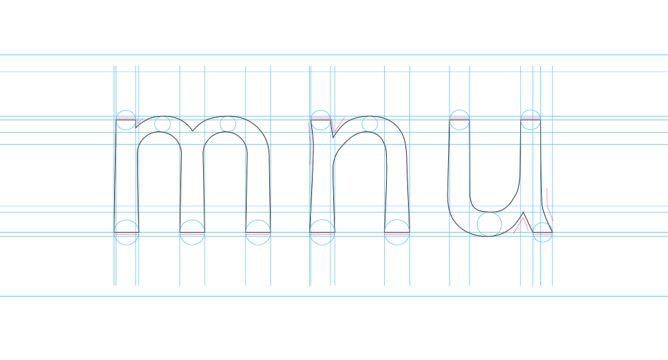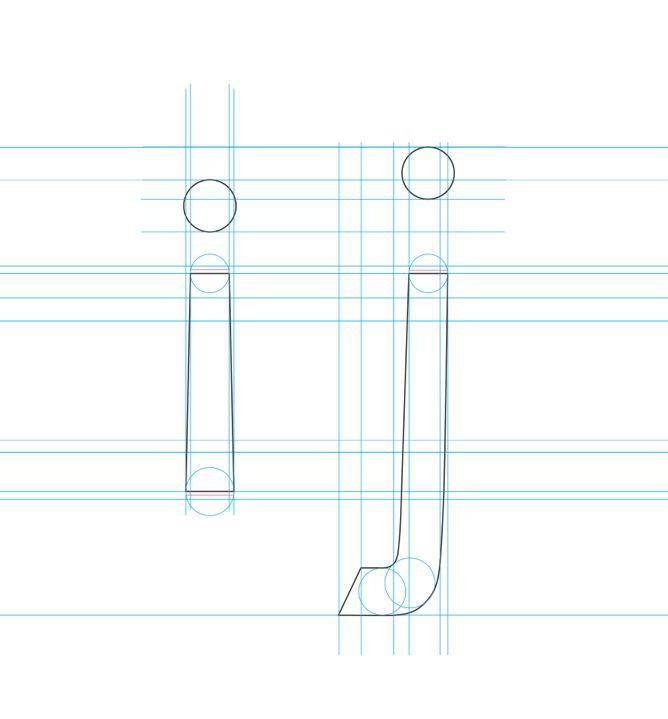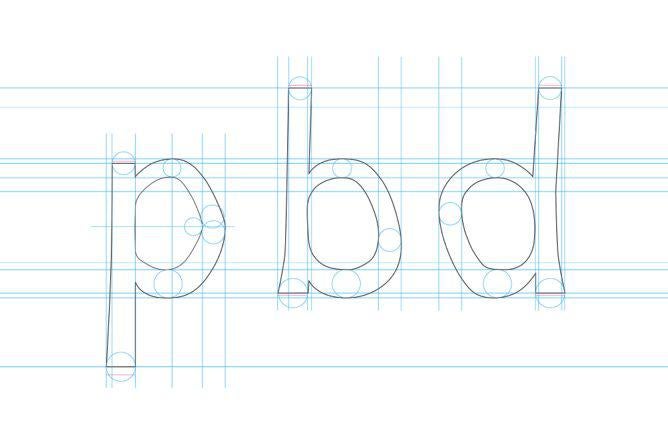
A Typeface Designed to Help Dyslexics Read
Dutch designer Christian Boer created the Dyslexie font to help people with dyslexia like himself.
Dutch designer Christian Boer created a dyslexic-friendly font to make reading easier for people with dyslexia, like himself.
“Traditional fonts are designed solely from an aesthetic point of view,” Boer writes on his website, “which means they often have characteristics that make characters difficult to recognize for people with dyslexia. Oftentimes, the letters of a word are confused, turned around or jumbled up because they look too similar.”
Designed to make reading clearer and more enjoyable for people with dyslexia, Dyslexie uses heavy base lines, alternating stick and tail lengths, larger openings, and semicursive slants to ensure that each character has a unique and more easily recognizable form.
Currently featured as part of the Istanbul Design Biennial, Boer’s Dyslexie typeface was originally conceived as part of his Utrecht Art Academy thesis in 2008. He has recently made it available for home users to download for free. Once installed, readers with dyslexia can use the font to type, print documents, read email, or browse the Web.
Boer says that independent studies from the University of Twente and the University of Amsterdam back up his claims that Dyslexie helps both children and adults with dyslexia to read faster and with fewer errors, though the results from Twente were mixed or statistically insignificant.* He told me in an email that since making the font available for free to individual users last June, 12,000 people have downloaded it. He says that Dyslexie is also being used “within companies such as Shell, KLM, Citibank, Pixar, Nintendo, Talpa, as well as various government agencies, many universities and other educational institutions.” The Dyslexie website includes a list of books and e-books available in the font.
Designer Christian Boer.
Dyslexie isn’t the only font designed for people with dyslexia. Introduced in 2011, OpenDyslexic is an open-source font that is also available for free download.
Correction, Nov. 12, 2014: This post originally stated that Dyslexie font designer Christian Boer said that studies from the University of Twente and the University of Amsterdam say that Dyslexie helps children and adults with dyslexia to read faster and with fewer errors. The studies from the University of Twente showed mixed results in reading speed and accuracy when people with dyslexia used a specialized font.